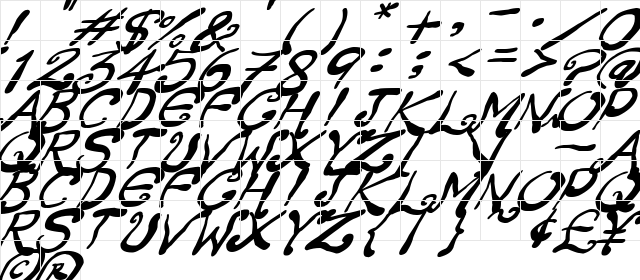
Creepy Scrawly Italic
Design Context for Creepy Scrawly Typeface
Creepy Scrawly carries an unsettling edge — its distorted letterforms are built to unsettle, perfectly suited to horror, Halloween, and dark creative work. The dynamic lean of this cut emphasises speed and emphasis in any layout.
Perfect for anything that needs to unsettle — game titles, horror branding, and macabre invitations.
Font Pairing: Pair with a clean neutral sans-serif for body copy to let Creepy Scrawly's character lead without overwhelming the composition.
Pro Tip: Use Creepy Scrawly at larger display sizes for maximum impact. Consider generous tracking to let the disturbing character of each letterform breathe.